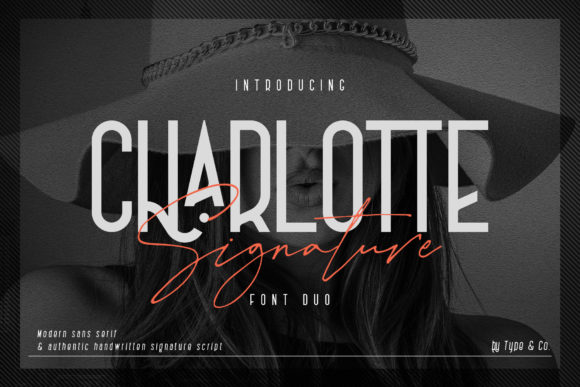
Introducing Charlotte Signature Font, the ultimate duo font crafted with elegance and versatility. This script font is a masterpiece designed by Type and Co., a renowned name in the world of digital artistry. Charlotte Signature is not just a font; it's an expression of creativity and a tool to transform your designs into breathtaking works of art.
Step into a world of timeless beauty with Charlotte Signature, the perfect font for capturing the essence of romance and sophistication. Its flowing, graceful lines dance across the page, evoking a sense of ethereal grace and elegance. Whether you're crafting wedding invitations, love letters, or any design that calls for a touch of enchantment, Charlotte Signature will weave its magic, leaving your audience captivated.
Unleash your creativity and explore the limitless possibilities that await you with Charlotte Signature. Its remarkable versatility makes it a perfect fit for an array of design projects. From branding and logos to social media graphics and website designs, Charlotte Signature seamlessly adapts to your vision, adding a touch of refinement and charm to every creation.
Immerse yourself in the world of Charlotte Signature and discover the transformative power of typography. This font is more than just a collection of letters; it's an invitation to embark on a creative journey where your imagination knows no bounds. Let Charlotte Signature be your muse, guiding you towards designs that resonate with your audience and leave a lasting impression.